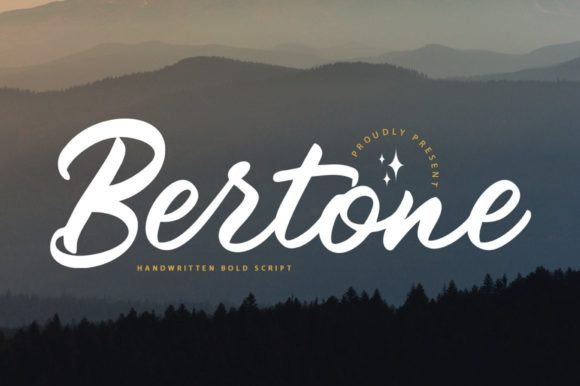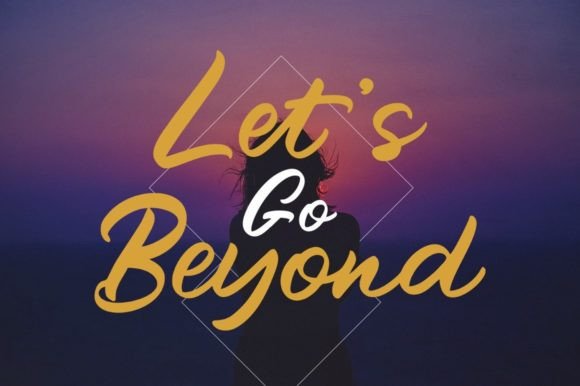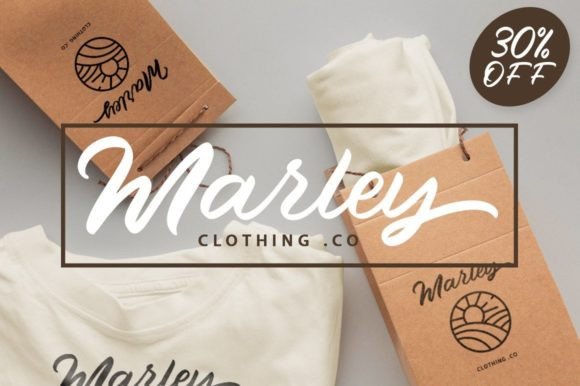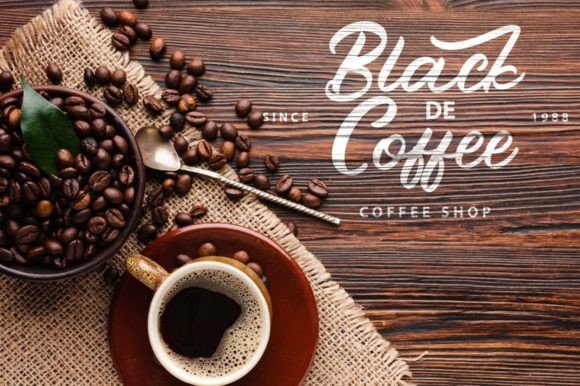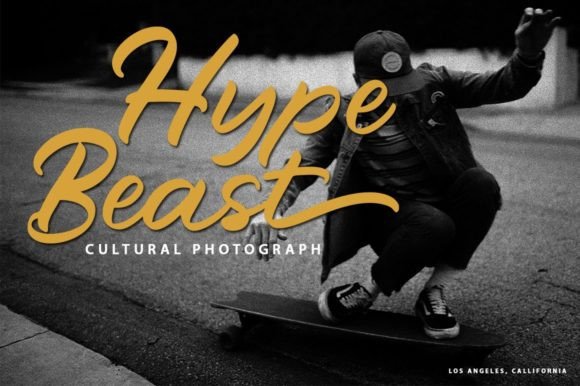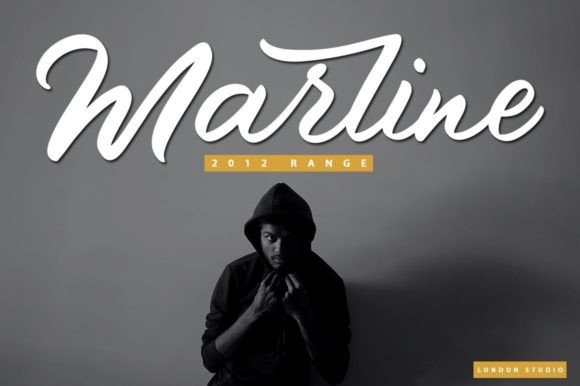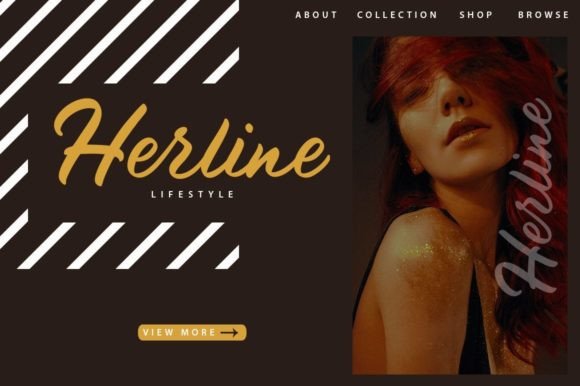
Bertone Font
About Bertone Font
Bertone emerges as a natural, smooth brush font, embodying an organic, dynamic, and energetic style. This versatile typeface is well-suited for a myriad of applications, including titles, signatures, logos, correspondence, wedding invitations, letterheads, signage, labels, newsletters, posters, badges, and more.
One of Bertone’s distinctive features is its PUA encoding, ensuring easy access to all its glyphs and swashes. This encoding empowers designers with the ability to seamlessly incorporate unique and expressive elements into their projects, enhancing the font’s adaptability and creativity.
Imagine Bertone making a bold statement in titles, adding a touch of dynamism and energy to the forefront of design projects. Envision it gracing the pages of wedding invitations, imparting a sense of organic elegance to the celebration. The font’s versatility extends to various design contexts, from signage to logos, where its dynamic brush strokes can breathe life into each creation.
With Bertone, you have a font that transcends the ordinary, offering a natural and energetic aesthetic that elevates the visual impact of your designs. Whether you’re working on logos, invitations, or any project that demands a dynamic and organic touch, Bertone stands ready to infuse your creations with a vibrant and lively spirit.